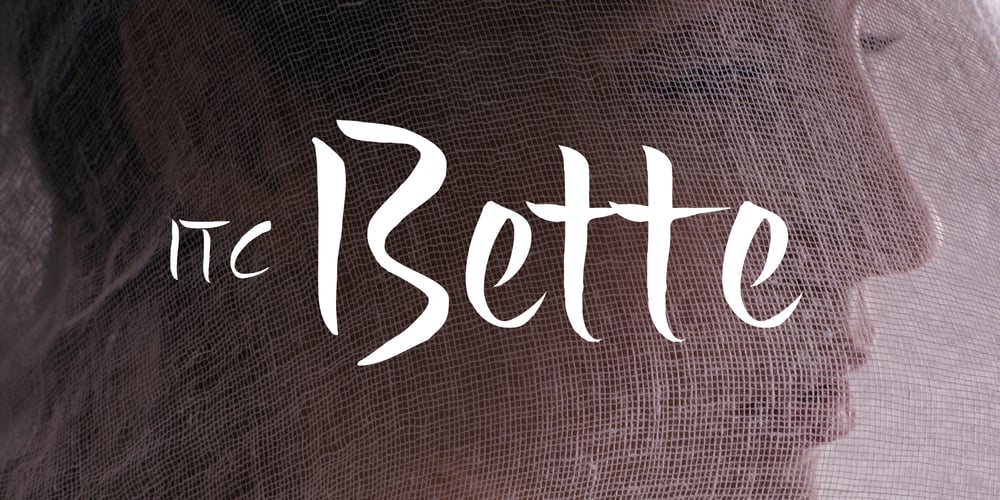
ITC Bette Font Family was designed by Patty King and published by ITC. ITC Bette contains 1 styles and family package options. ITC Bette is a particularly elegant calligraphic design from the hand of Patty King. Refined and friendly, this vertical script appears to be drawn with a brush held delicately at a right angle to the page. The unconnected letters and flared ascenders create a feeling of spontaneity, while the design’s vertical stress produces a calming counterpoint. Many capital letters drop comfortably below the baseline, and terminals echo a flick of the wrist.